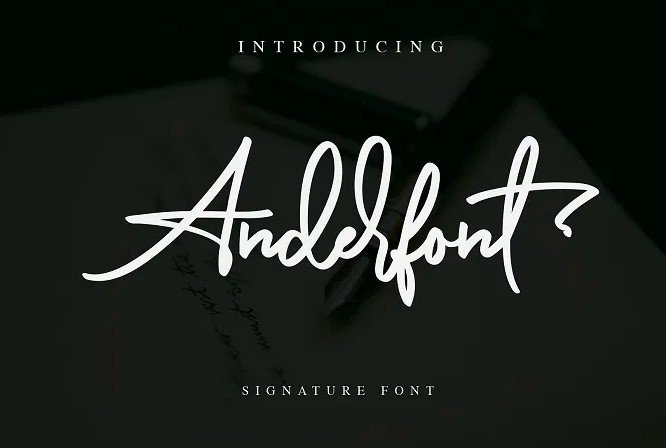
Anderfont Signature Font
This is one of the great classy font typefaces that has rich features, styles, and ligatures that is great to work with the combination of abril fatface font.
About Anderfont Signature Font
Introducing the well-loved Anderfont Signature Font, an exceptional handwritten font typeface. Available for download, you can use it in Adobe Photoshop to create impressive and outstanding projects for free.
This is one of the great classy font typefaces that has rich features, styles, and ligatures that is great to work with the combination of abril fatface font.
There are many designers around the world who like to make their brilliant designs and puts attractive kinds of stuff with the scripted or signature typeface. You can also do the same just with the font.